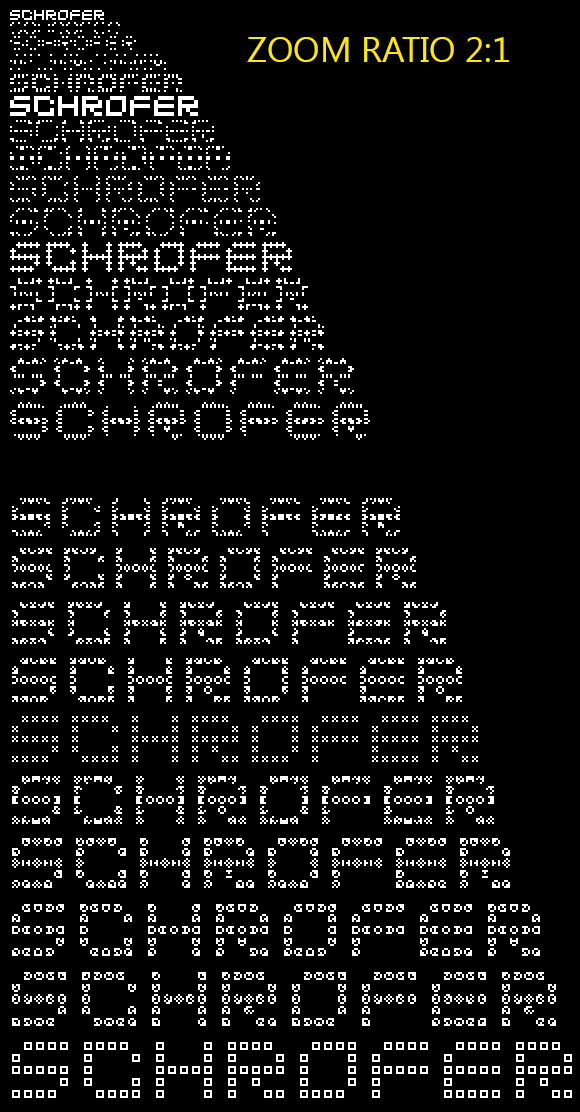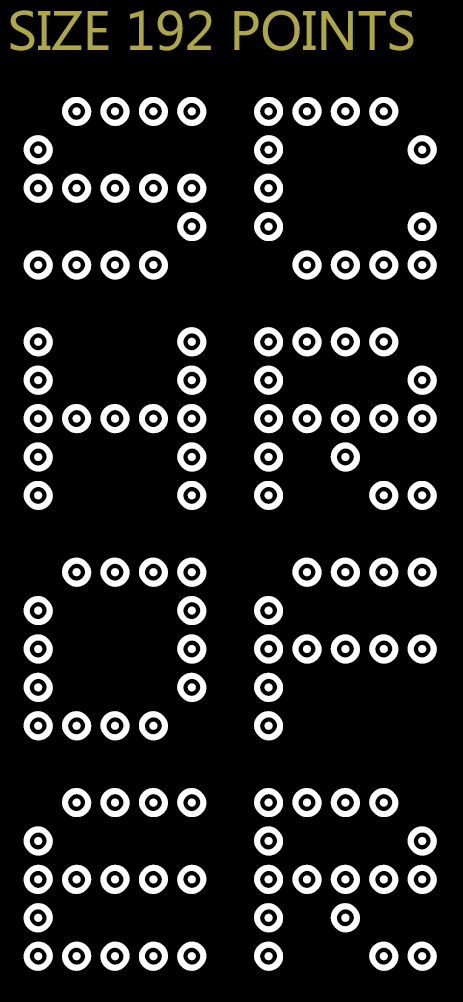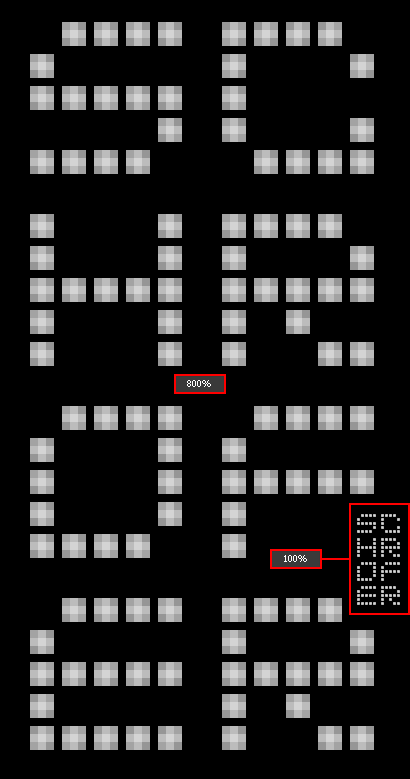
Sketch as originally was desined by Jurriaan Schrofer
The background pattern in the sample in fact is repeatedly saying JURRIAANSCHROFER and was created from this same font.
Oh it disappears at point sizes: 2, 4, and 20
Can you do a comparison of fontsizes with and without smooth edges?
So it only works well at large sizes when using it how it was intended
So, if you are using it at 20 pixels, make sure that you have anti-aliasing on... Also, I wonder what it looks like at 20 points with anti-aliasing on...
(or at 20 pointsize)
Oh and only in Adobe Photoshop it is showing this behaviour. Viewed in FontLab and FontViewer it is not disappearing!